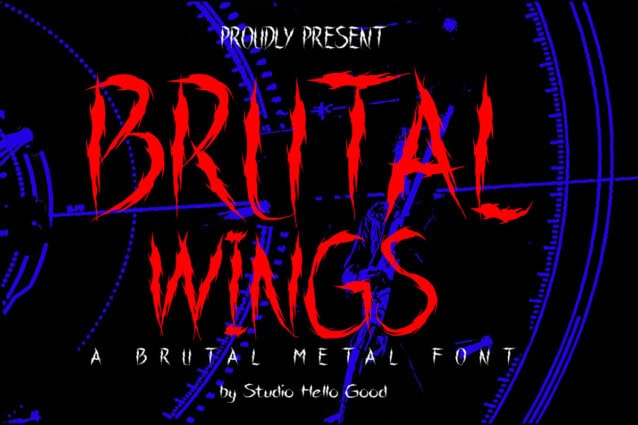
Brutal wings Font
Brutal wings Font is a distorted display font, carefully handcrafted to become a true favorite. This font will look outstanding in any context, whether it’s being used on busy backgrounds or as a standalone headline!